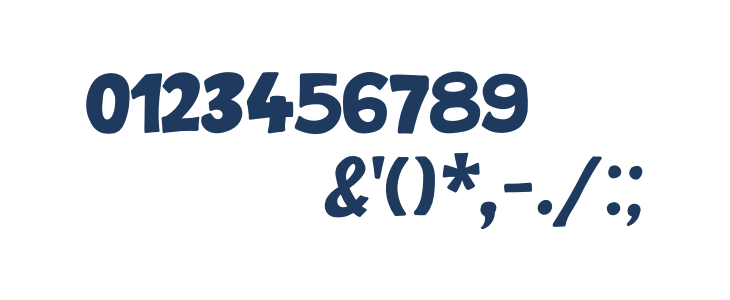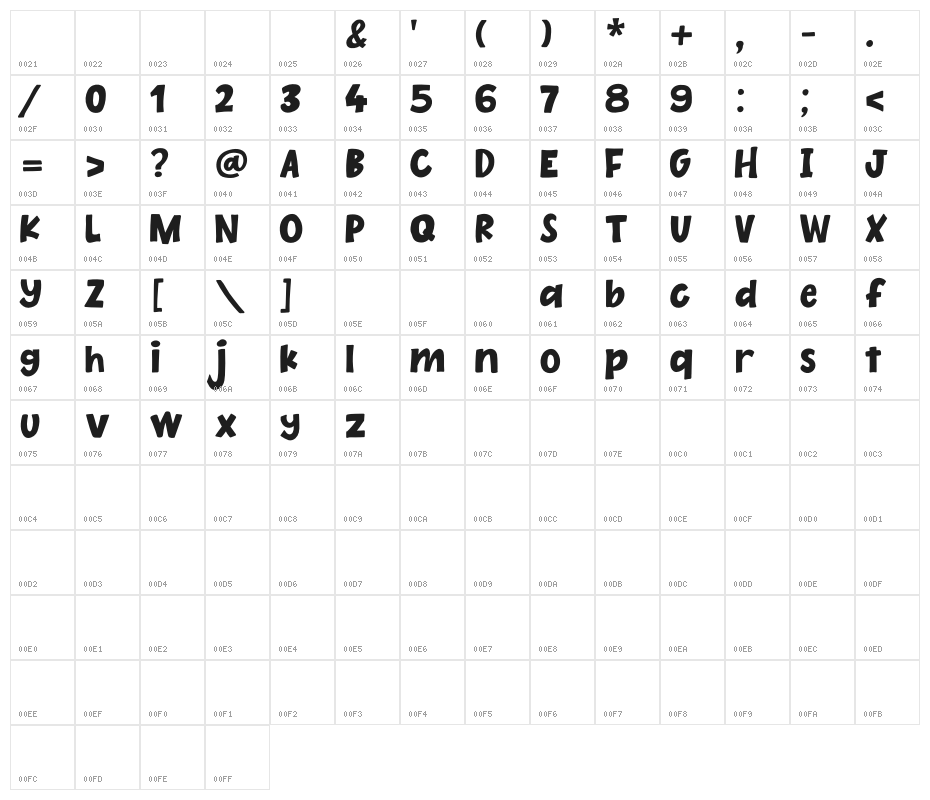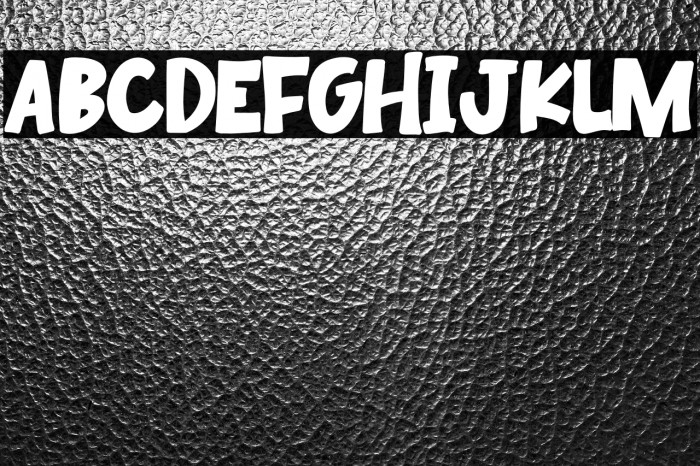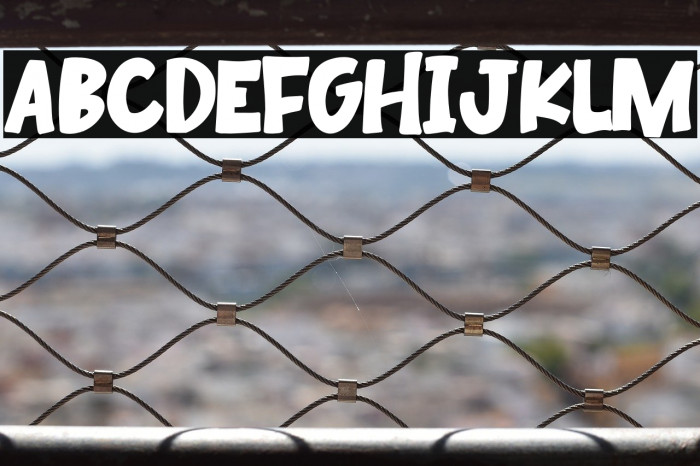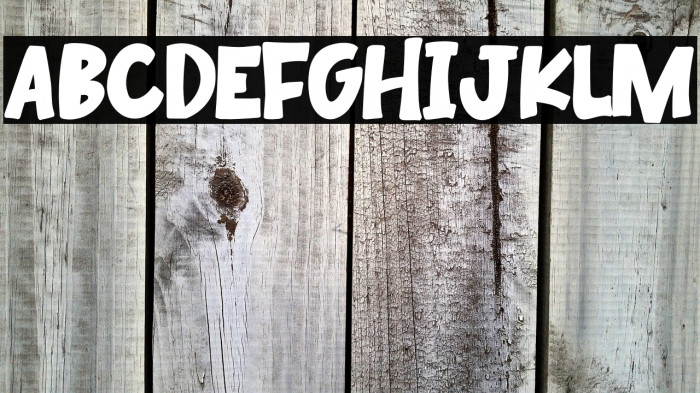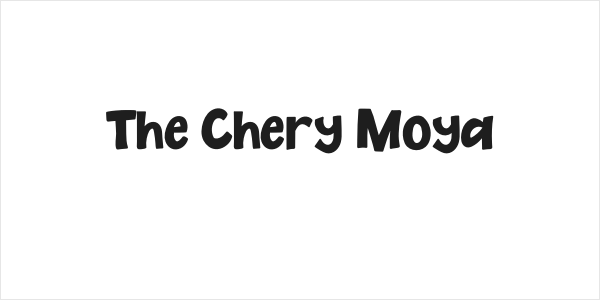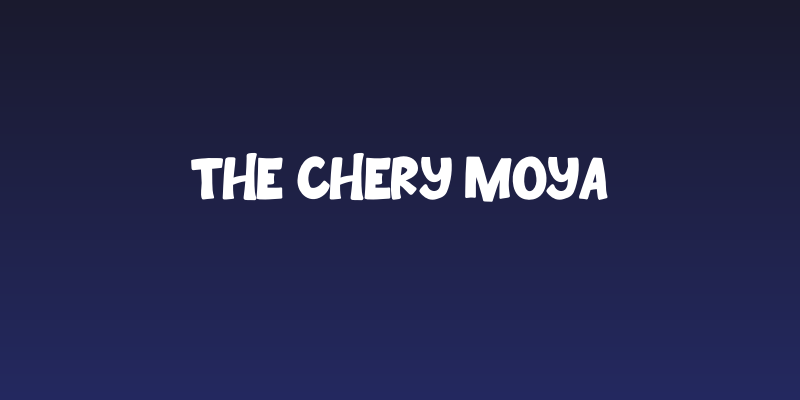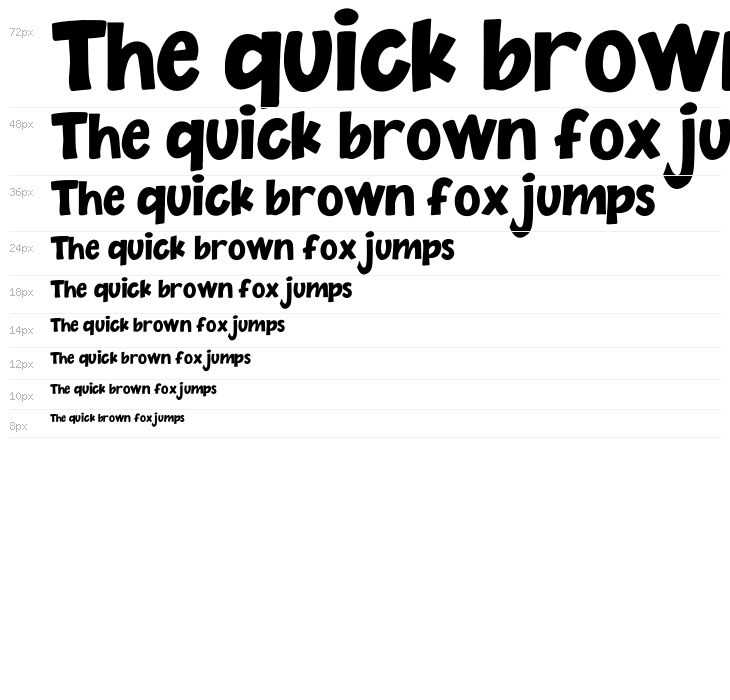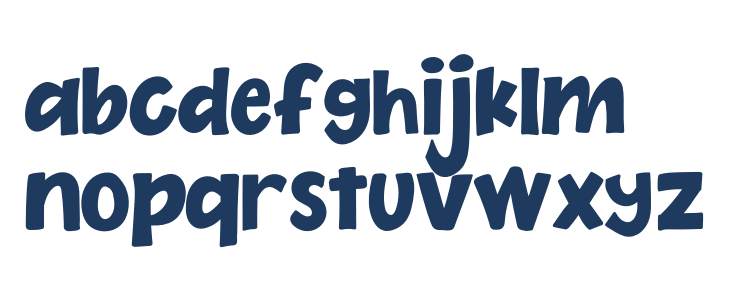
The Chery Moya Font
The Chery Moya Description
This playful and bold font features a hand-drawn aesthetic with thick, rounded strokes that give it a friendly and approachable feel. The characters are slightly irregular, adding to its charm and making it perfect for informal and creative projects. The uppercase and lowercase letters maintain a consistent style, with a whimsical touch that is evident in the curves and angles. Numbers and special characters are equally bold and expressive, ensuring a cohesive look across all text elements. This font is ideal for projects that require a fun and lively appearance, such as children's books, posters, or branding for playful products.
| Proposed Projects | Ideal for children's books, playful branding, posters, and creative projects. |